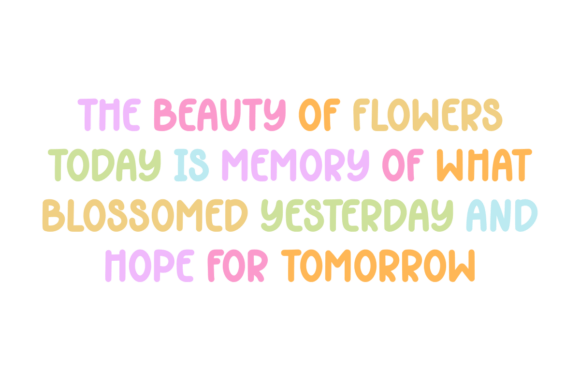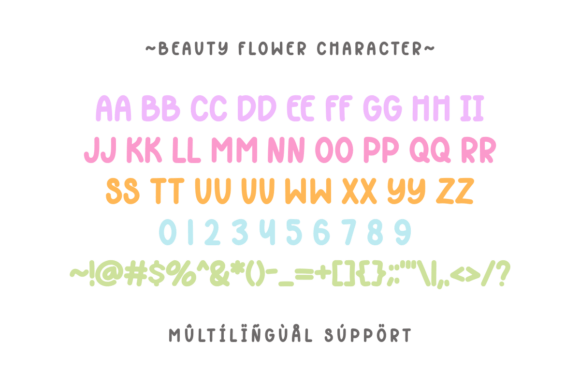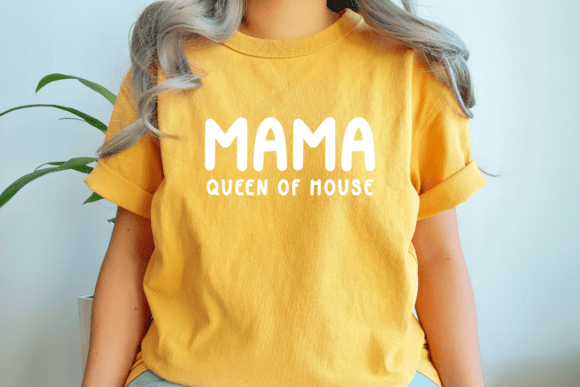
Beauty Flower Font
Beauty Flower is a cute handwritten font with rounded and bouncy characters that give a fun and friendly vibe to your design. Perfect for planners, greeting cards, product packaging, quotes, posters, and all your DIY crafting needs.